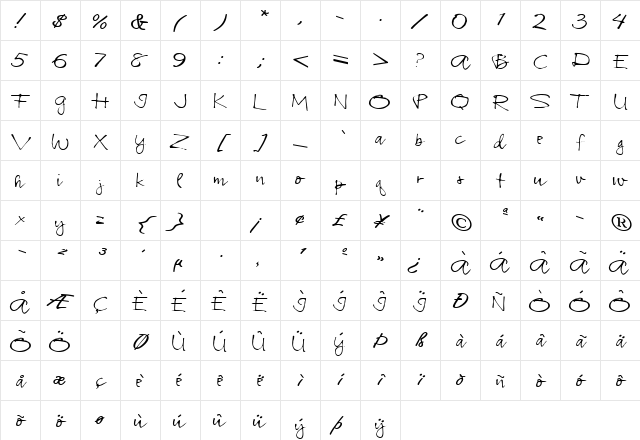
Trans Regular
Trans Family
Trans Regular
Design Context for Trans
Trans is a composed and adaptable typeface that performs quietly and consistently across a wide range of design contexts.
Pro Tip: Use Trans in both headline and body roles to test its range before committing to a single application.